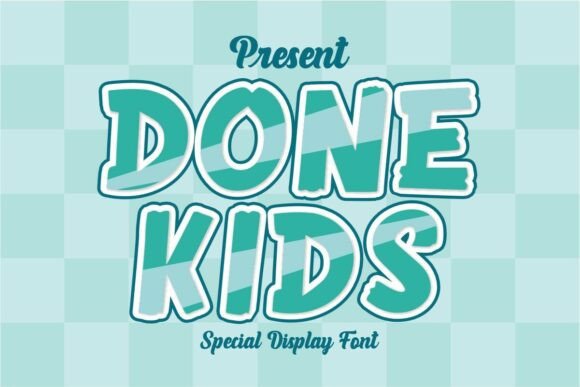
Introducing Donekids Regular Font: The Perfect Choice for Playful and Friendly Designs
Are you looking for a font that can add a touch of playfulness and friendliness to your designs? Look no further than Donekids Regular Font. This charming decorative display font is designed to convey a lighthearted and youthful aesthetic, making it perfect for projects targeting a younger audience or aiming for a fun tone.
A Distinctive, Multi-Layered Appearance
Donekids Regular Font features a distinctive, multi-layered appearance that sets it apart from other fonts. Its bold, rounded letterforms have an inner lighter shade and a prominent outline, creating a subtle 3D effect that enhances its visual appeal. This unique design makes it perfect for designs that require a bit of depth and dimension.
Ideal for Projects Targeting a Younger Audience
Donekids Regular Font is ideally suited for projects targeting a younger audience. Its playful and friendly aesthetic makes it perfect for designs aimed at kids, such as children’s books, educational materials, and kids’ websites. The font’s lighthearted tone also makes it suitable for designs that require a fun and approachable feel, such as party invitations, flyers, and posters.
Versatile and Adaptable
One of the best things about Donekids Regular Font is its versatility. It can be used for a wide range of design projects, from crafts and digital creations to engaging presentations and classic short stories. The font’s adaptability makes it a favorite among designers and crafters, who can use it to add a touch of personality to their designs.
Perfect for Crafts and Digital Creations
Donekids Regular Font is a great choice for crafters and digital creators who want to add a personal touch to their projects. The font’s playful and friendly aesthetic makes it perfect for handmade crafts, such as cards, gift tags, and scrapbook pages. It can also be used for digital creations, such as social media graphics, blog posts, and email newsletters.
Enhance Your Designs with a Fun and Approachable Feel
Donekids Regular Font can add a fun and approachable feel to any design. Its bold, rounded letterforms and subtle 3D effect make it perfect for designs that require a bit of personality and whimsy. Whether you’re creating a children’s book, a party invitation, or a social media graphic, this font is sure to bring a smile to your audience’s face.
Key Features of Donekids Regular Font
- Distinctive, multi-layered appearance: The font’s unique design features an inner lighter shade and a prominent outline, creating a subtle 3D effect.
- Playful and friendly aesthetic: The font’s bold, rounded letterforms convey a lighthearted and youthful tone.
- Versatile and adaptable: The font can be used for a wide range of design projects, from crafts and digital creations to engaging presentations and classic short stories.
- Perfect for projects targeting a younger audience: The font’s playful and friendly aesthetic makes it perfect for designs aimed at kids.
Donekids Regular Font is a charming decorative display font that can add a touch of playfulness and friendliness to your designs. Its distinctive, multi-layered appearance and bold, rounded letterforms make it perfect for projects targeting a younger audience or aiming for a lighthearted tone. With its versatility and adaptability, this font is sure to become a favorite among designers and crafters.